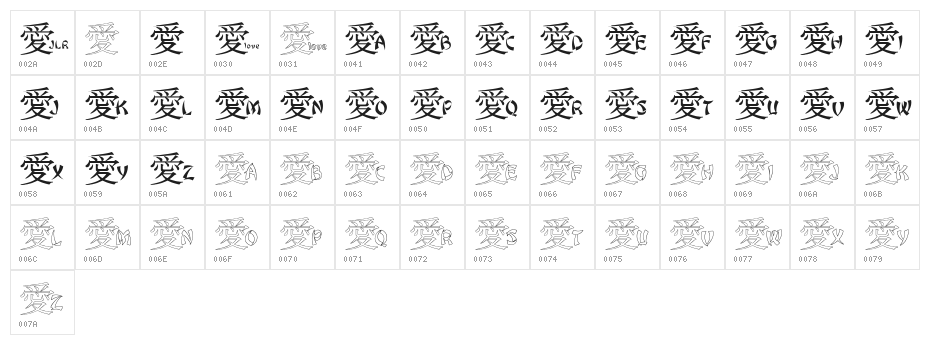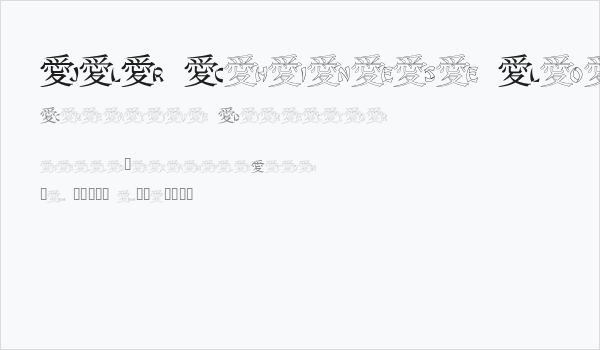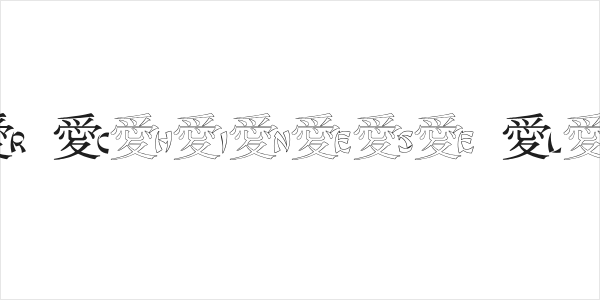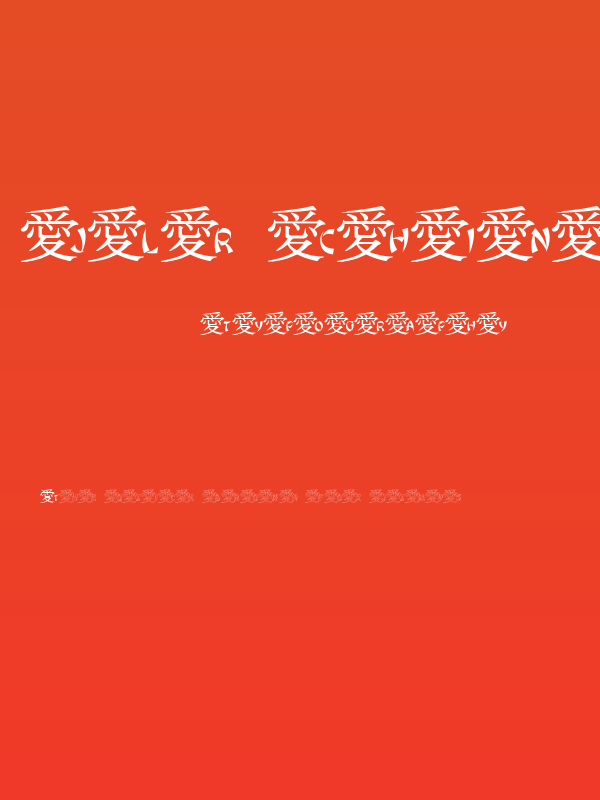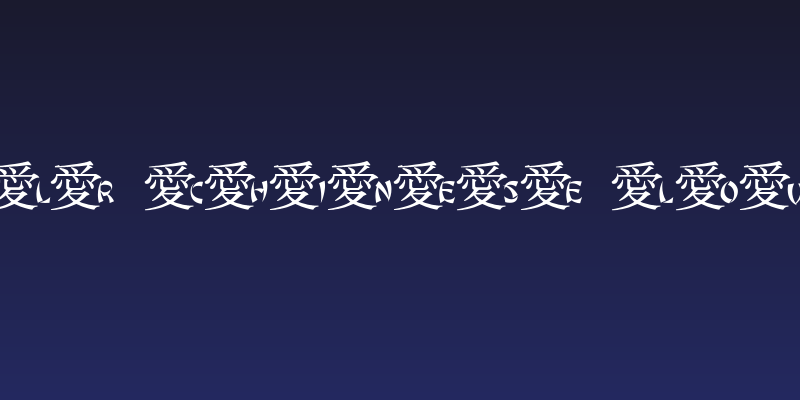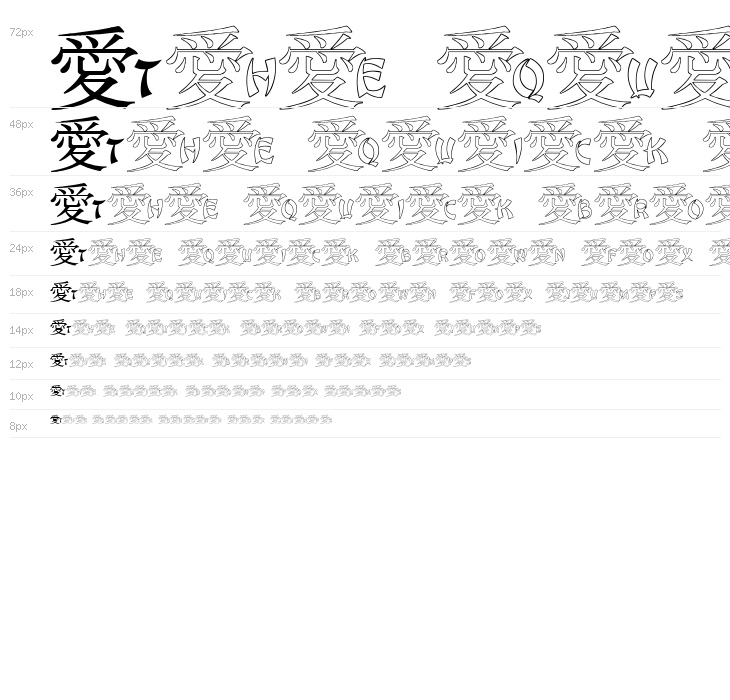
JLR Chinese Love Font
JLR Chinese Love Description
This font features a unique blend of traditional Chinese character aesthetics with a modern twist. Each letter is accompanied by the Chinese character for 'love', creating a harmonious fusion of Eastern and Western typography. The strokes are bold and expressive, with a calligraphic flair that adds elegance and cultural depth. The design is both artistic and functional, making it suitable for a variety of creative applications. The font maintains a consistent style across uppercase and lowercase letters, as well as numbers and special characters, ensuring versatility in design projects.
Use CaseLogos, Headlines, Artistic projects
Proposed ProjectsIdeal for cultural projects, wedding invitations, greeting cards, and artistic branding.